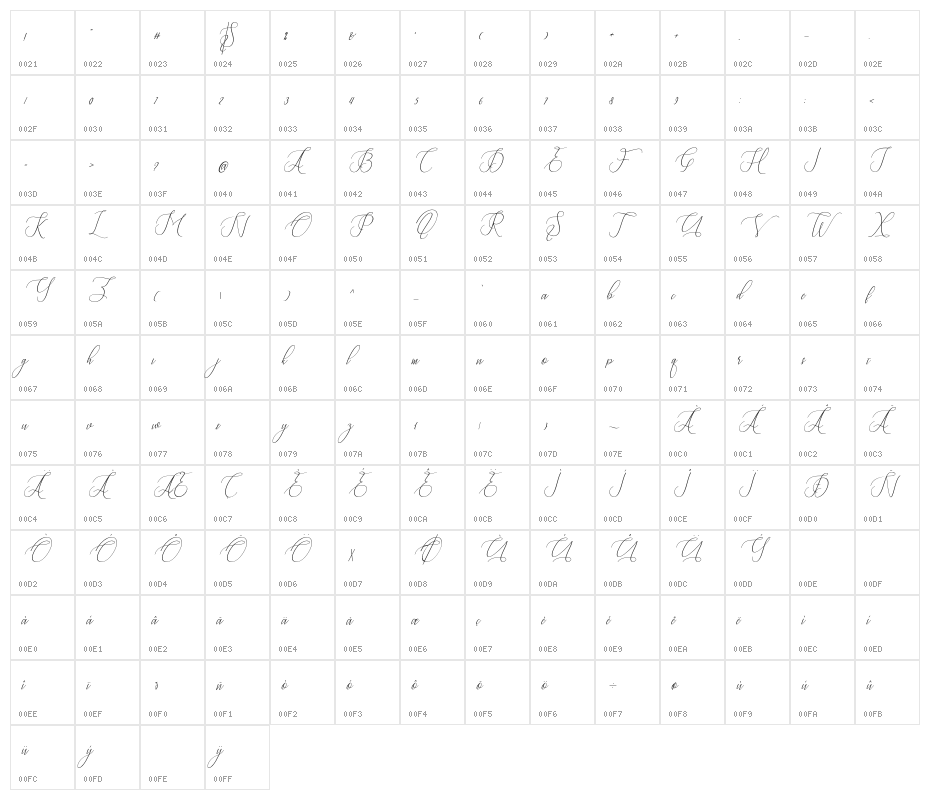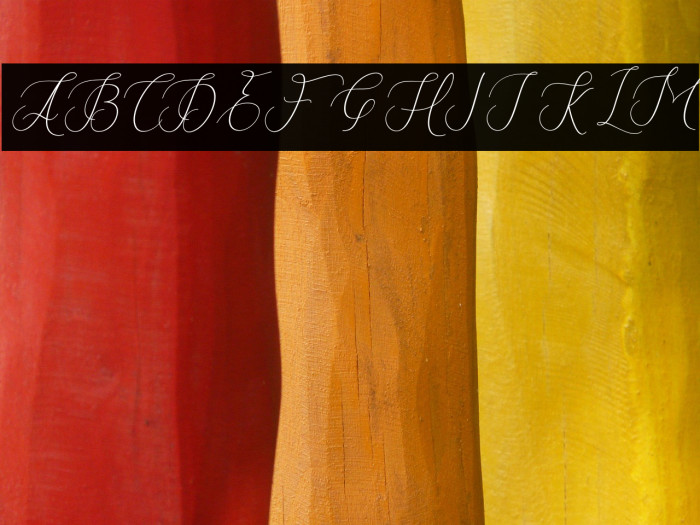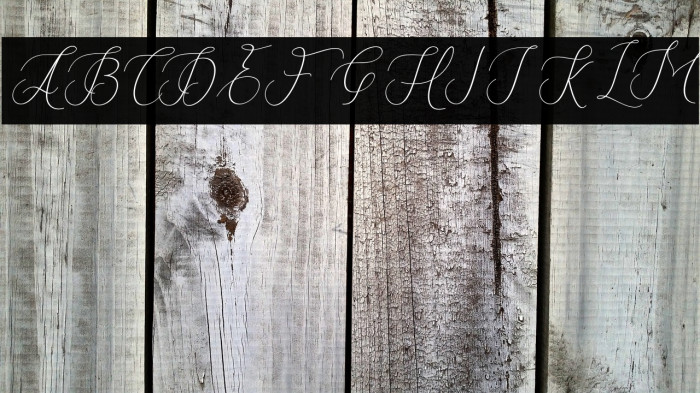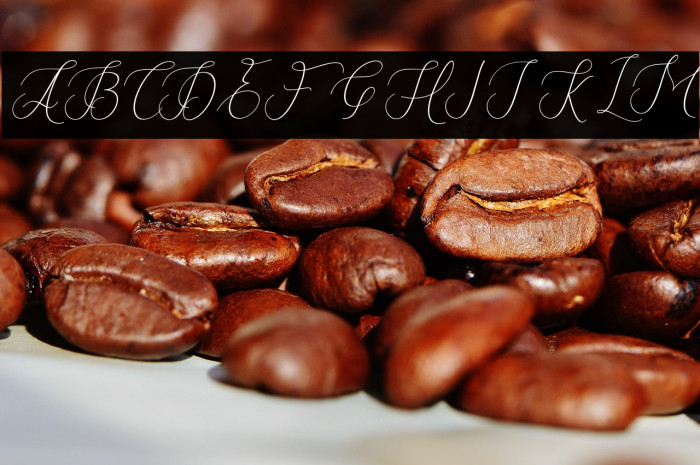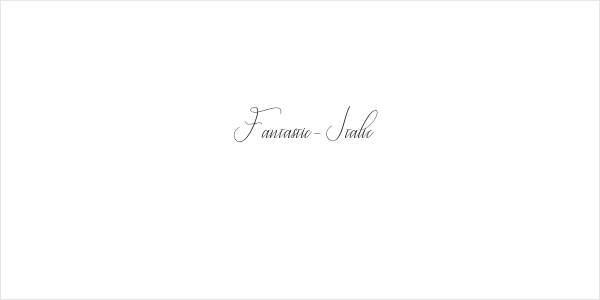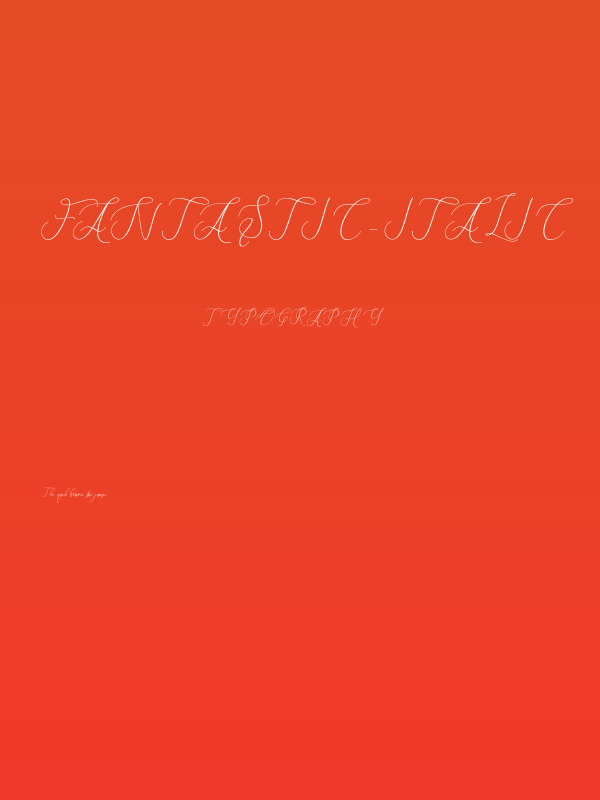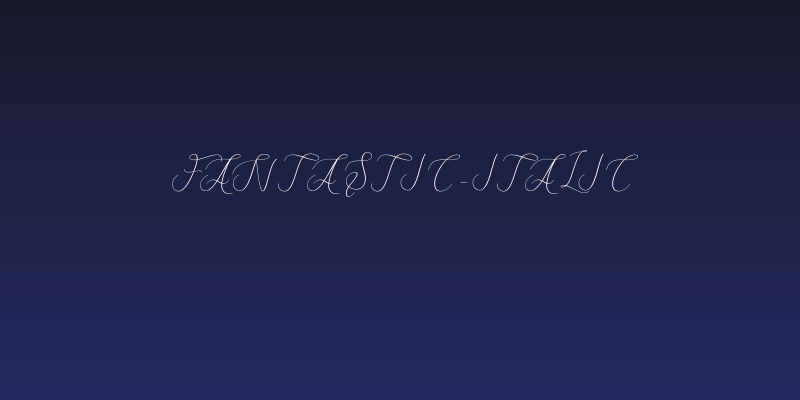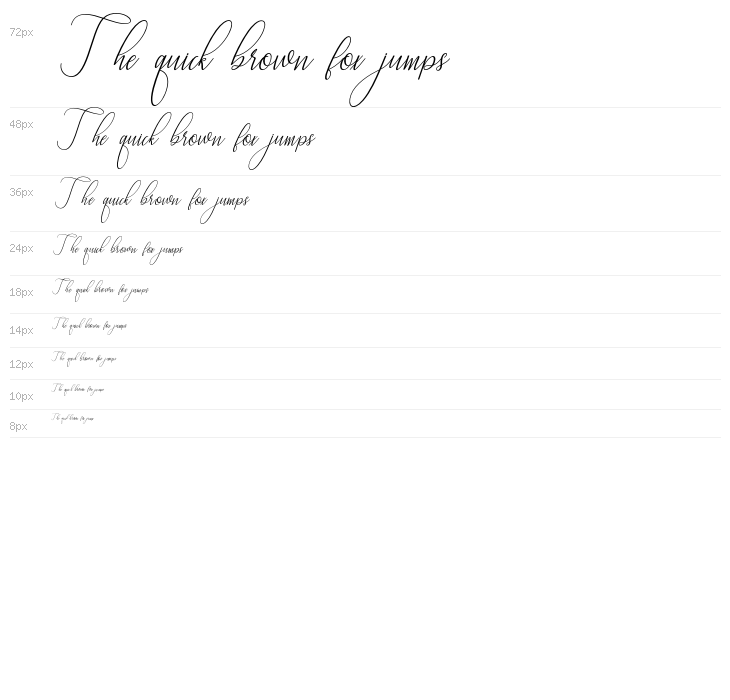
Fantastic-Italic Font
Fantastic-Italic Description
This elegant script font features a flowing, cursive style with intricate loops and swashes. The uppercase letters are particularly ornate, with extended flourishes that add a sense of sophistication and grace. The lowercase letters maintain a consistent, fluid motion, creating a harmonious balance with the uppercase. Numbers and special characters are designed with the same attention to detail, ensuring a cohesive look across all elements. The font's delicate lines and high contrast between thick and thin strokes give it a refined and luxurious appearance, making it ideal for formal invitations, branding, and decorative purposes.
| Overall Style | Elegant, Decorative |
| Use Case | Headlines, Invitations, Logos |
| Proposed Projects | Ideal for wedding invitations, luxury branding, elegant logos, and decorative headings. |